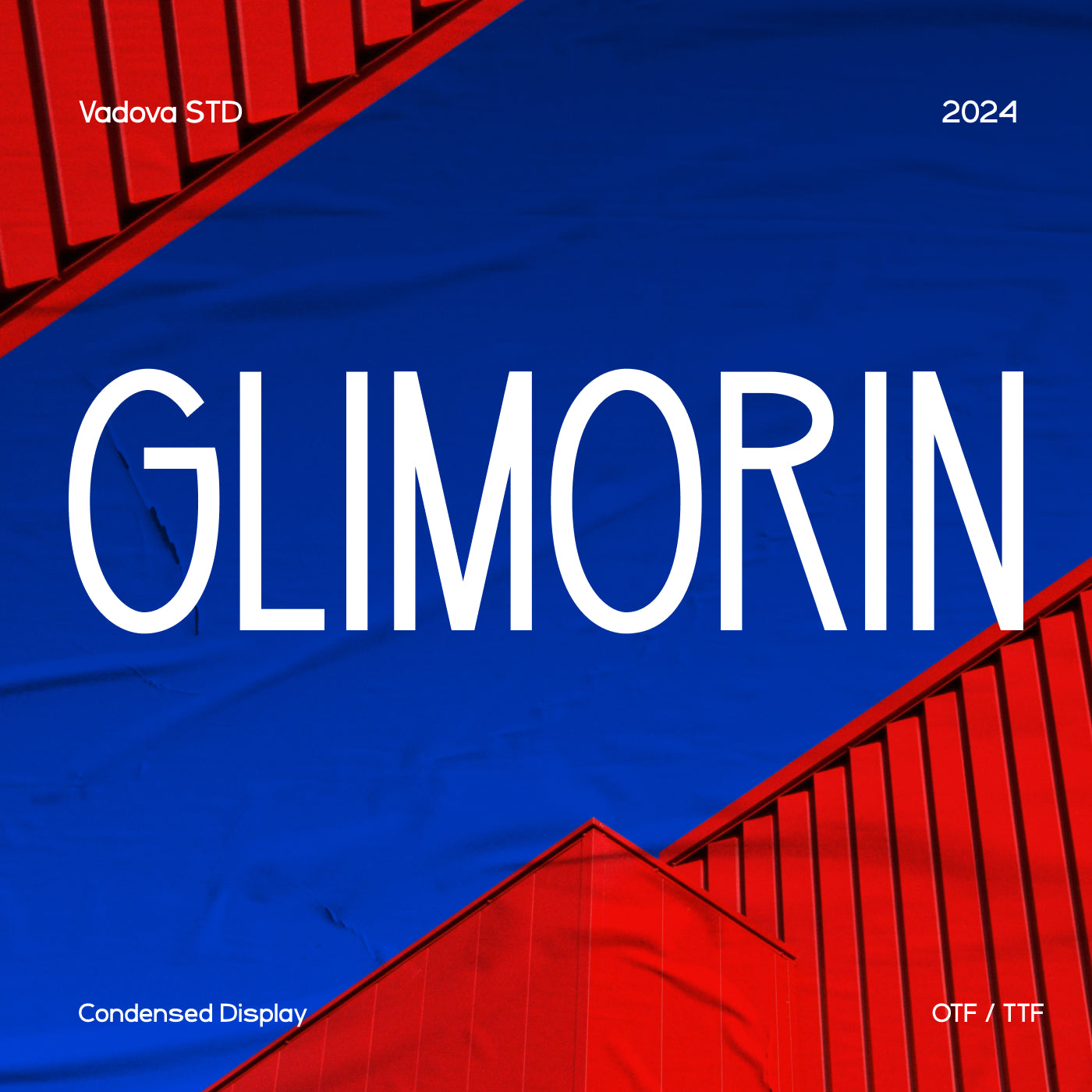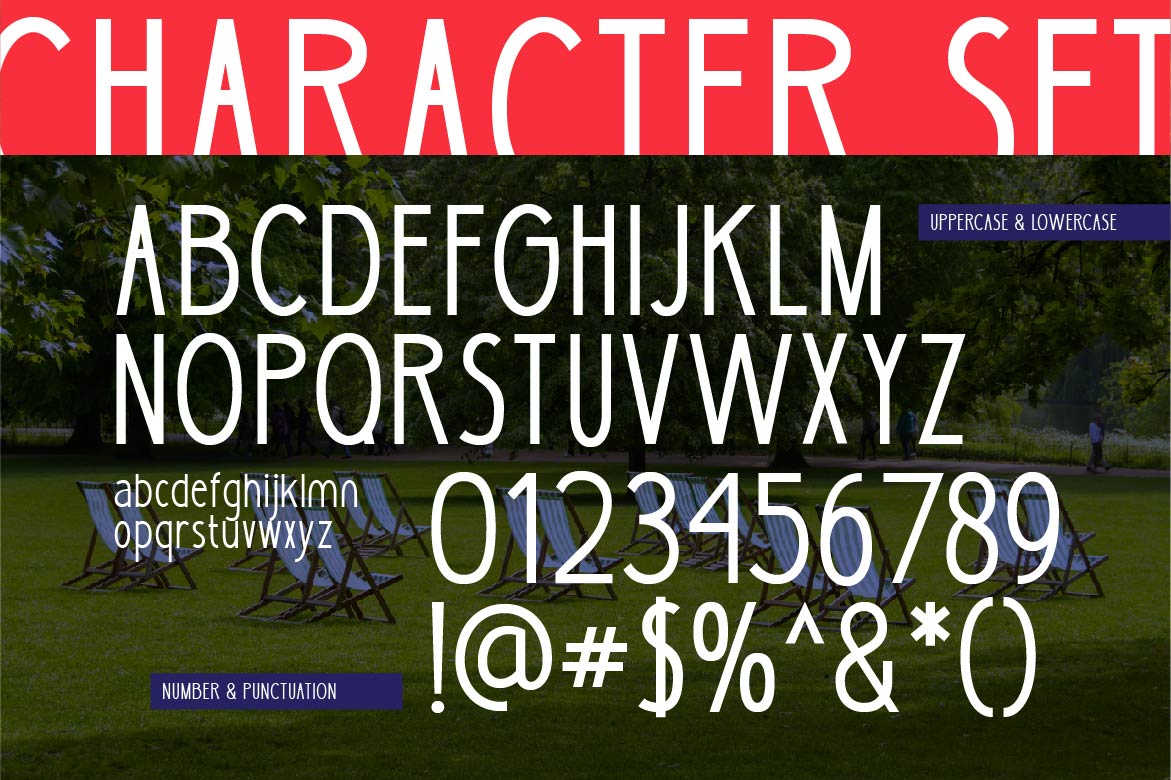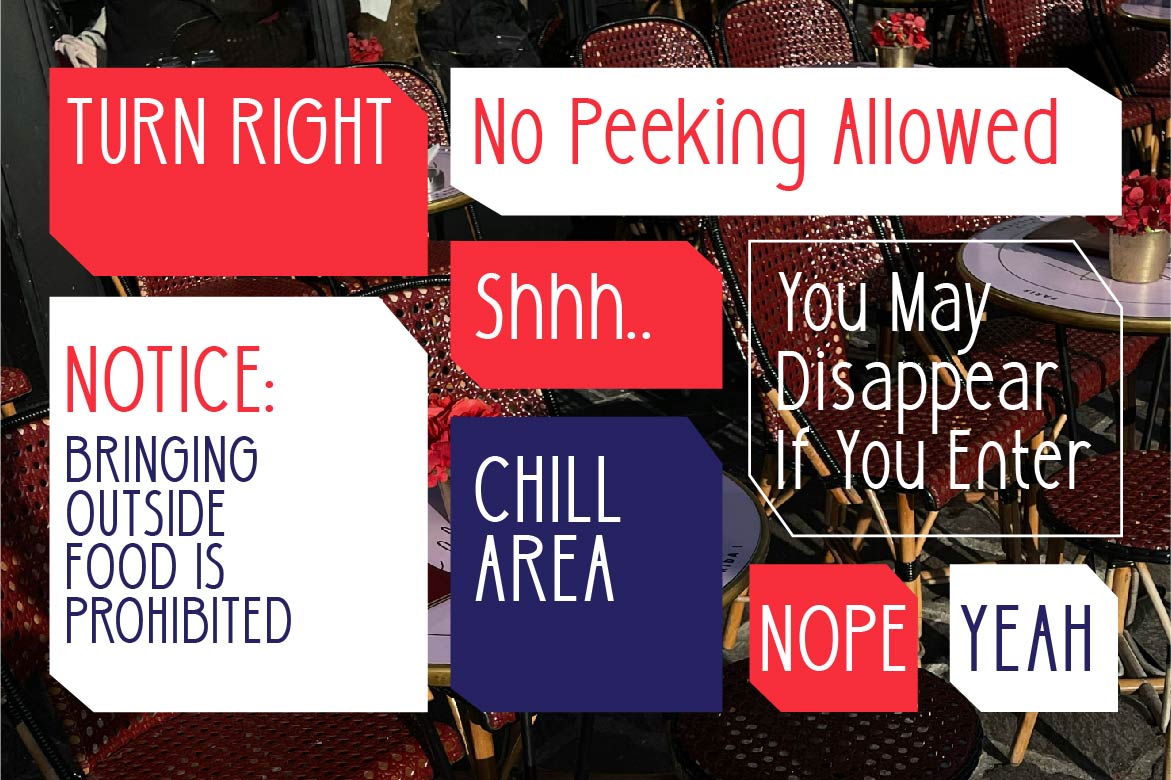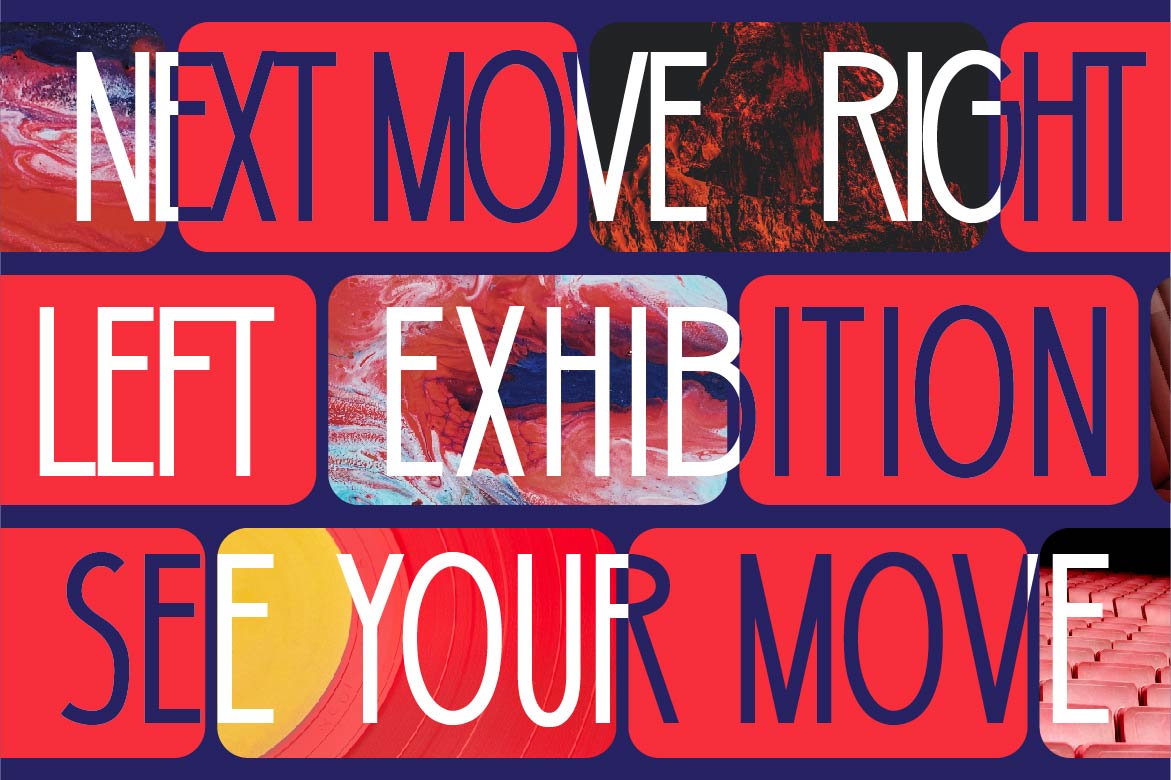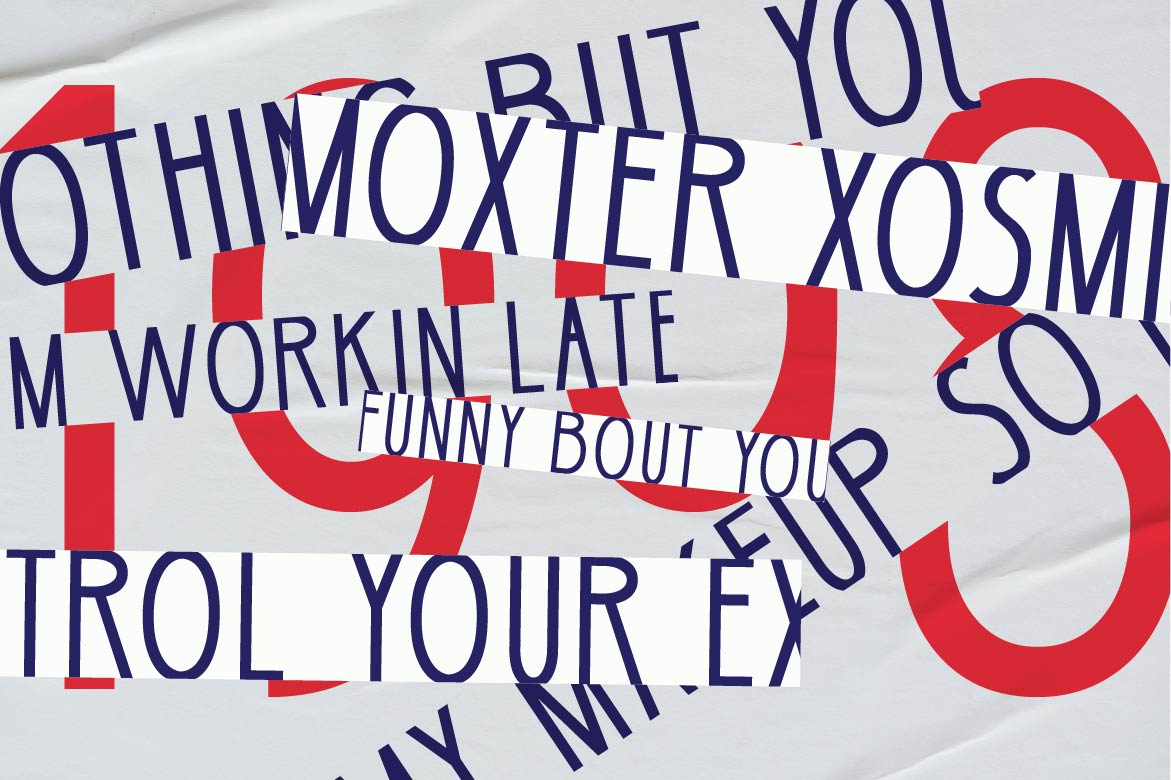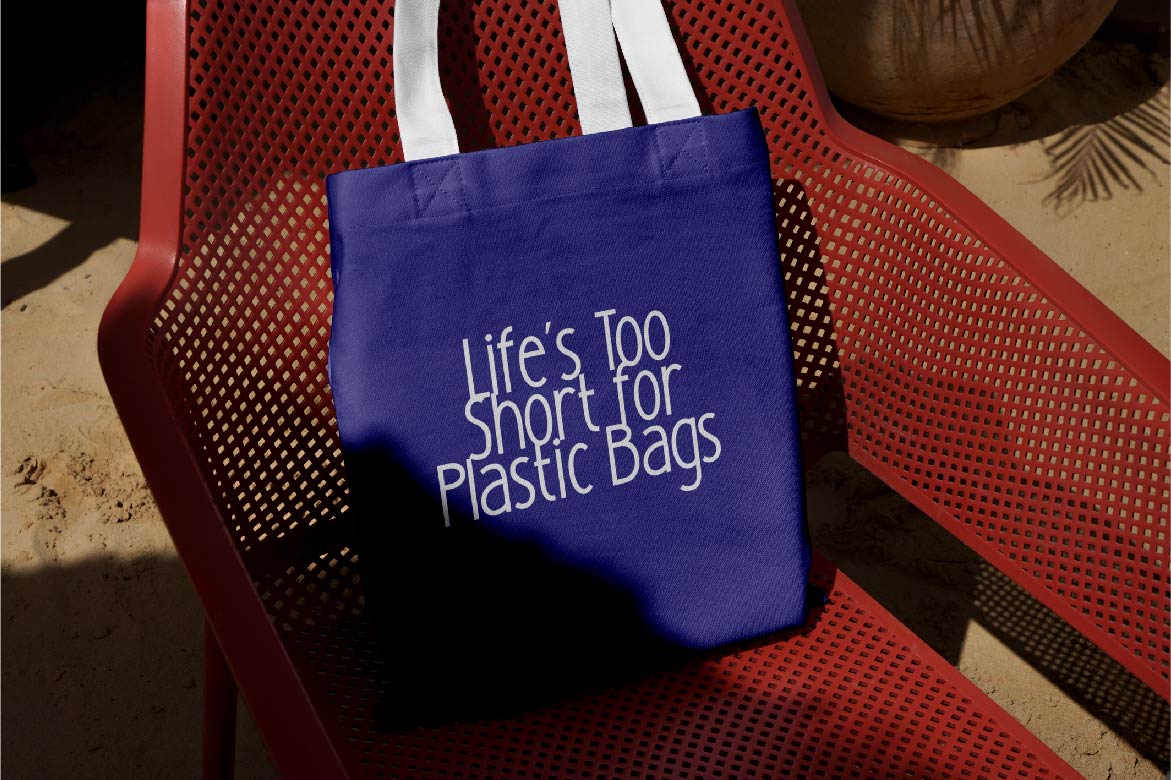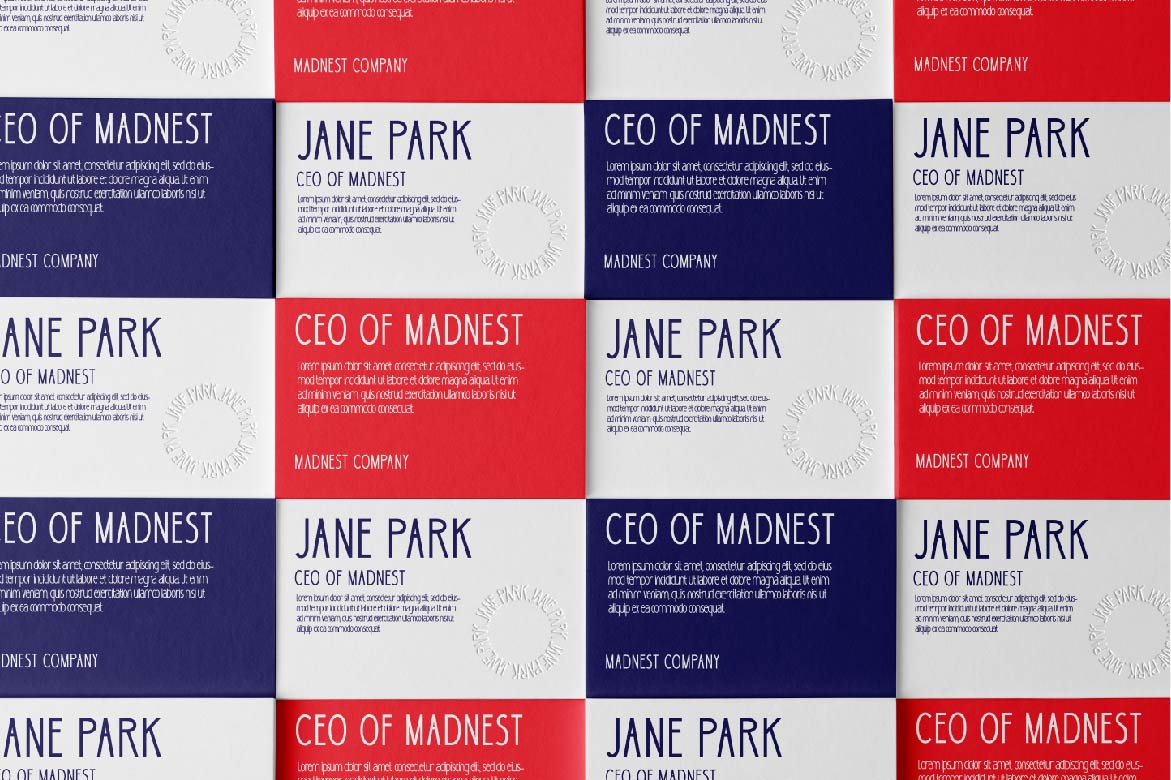
Glimorin Condensed Display Font
Glimorin emerges as a compelling condensed display font, projecting a modern and impactful energy. Its letterform structure is characterized by its narrow proportions, allowing for impactful headlines and text blocks in limited spaces. This font offers a versatile solution for various design needs, making it suitable for impactful social media campaigns, modern branding initiatives where space efficiency is key, and attention-grabbing packaging designs. Its condensed nature also lends itself well to editorial use, particularly for impactful titles and captions, and for creating a strong visual hierarchy in website designs.
Glimorin Condensed Display Font is a modern sans serif typeface featuring narrow letterforms, designed for impactful headlines and space-efficient text. It is available in TTF, OTF, and WOFF formats, includes uppercase and lowercase characters, as well as numerals and punctuation.